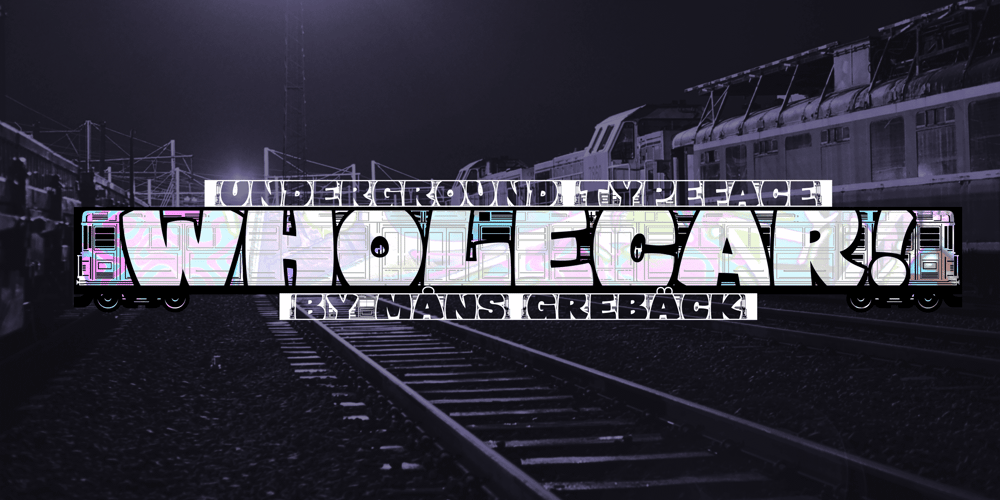
Wholecar Font Family was designed by Måns Grebäck and published by Mans Greback. Wholecar contains 8 styles and family package options. Wholecar is a train graffiti typeface. The letters are fun and friendly, with a happy personality and cartoonish quirkiness. A street style, Wholecar is drawn and created by Mans Greback, and is the perfect combination of cool and childish typography. This hip-hop styled comic typeface family comes in eight styles:Black, Inline, Invert, Regular and White. Additionally, the Wholecar Color, consisting of Noir, Pink and Silver, specifically created for Photoshop and Illustrator. Use characters [ ] { } ¤ # _ for train parts fitting the letters. Examples: [¤#¤_¤_¤#¤] [¤Graffiti¤]The font is built with advanced OpenType functionality and has a guaranteed top-notch quality, containing stylistic and contextual alternates, ligatures and more features; all to give you full control and customizability. It has extensive lingual support, covering all Latin-based languages, from North Europe to South Africa, from America to South-East Asia. It contains all characters and symbols you’ll ever need, including all punctuation and numbers.